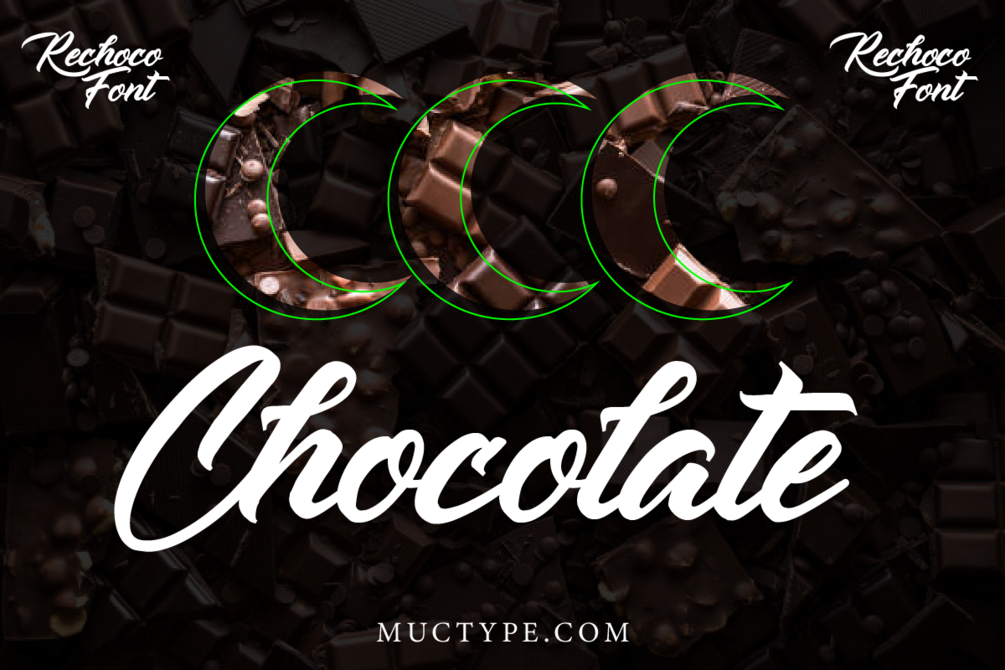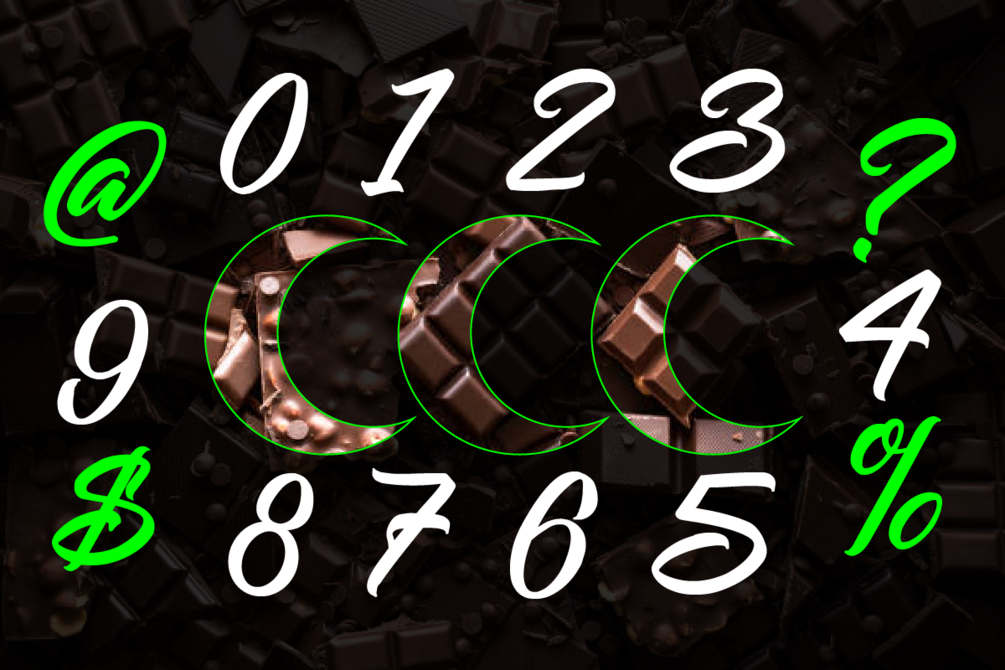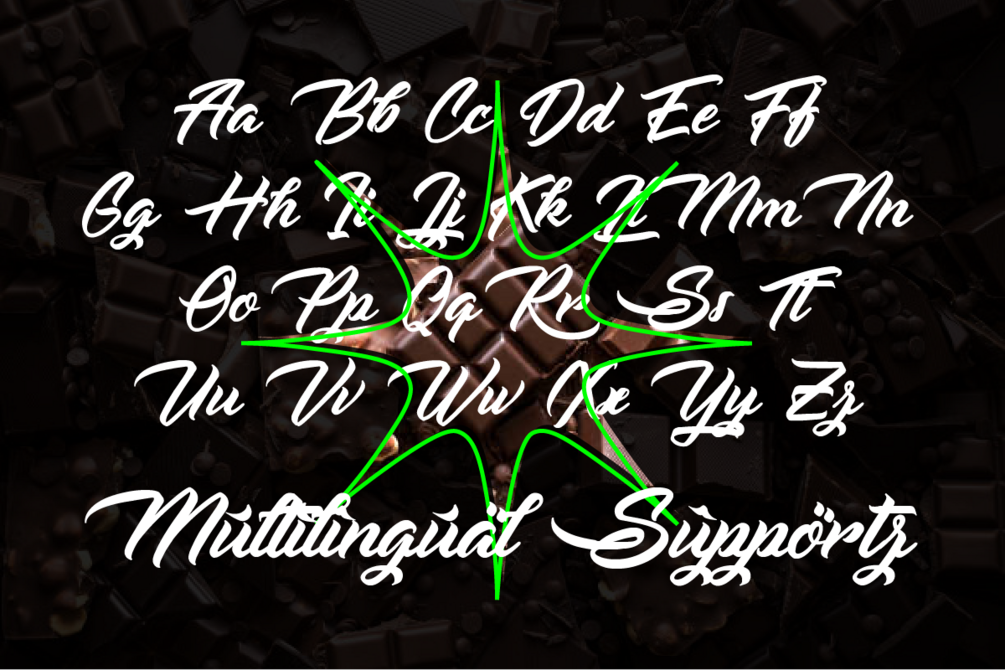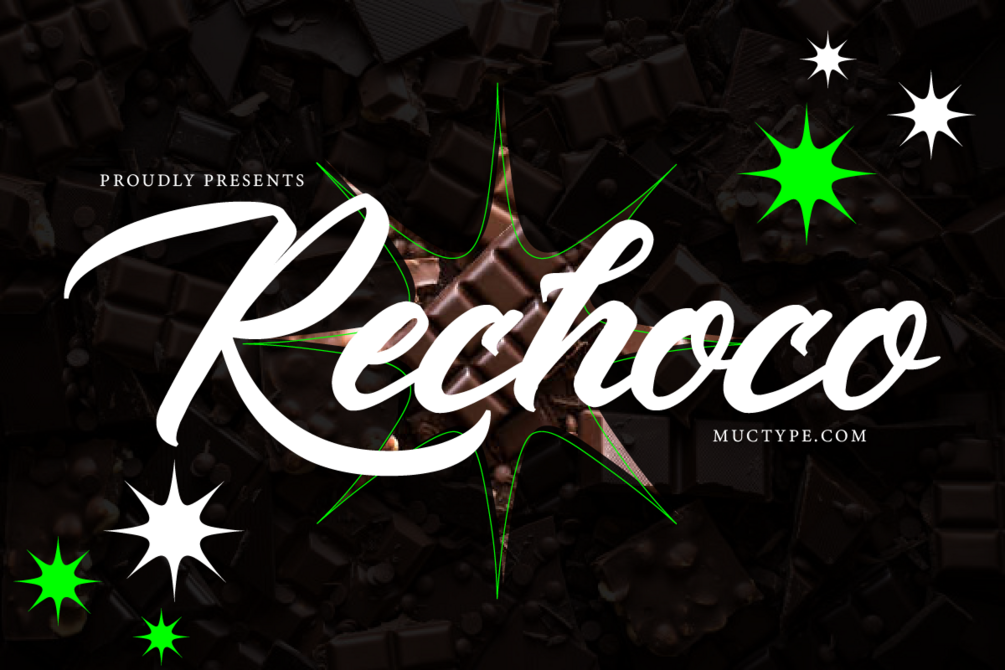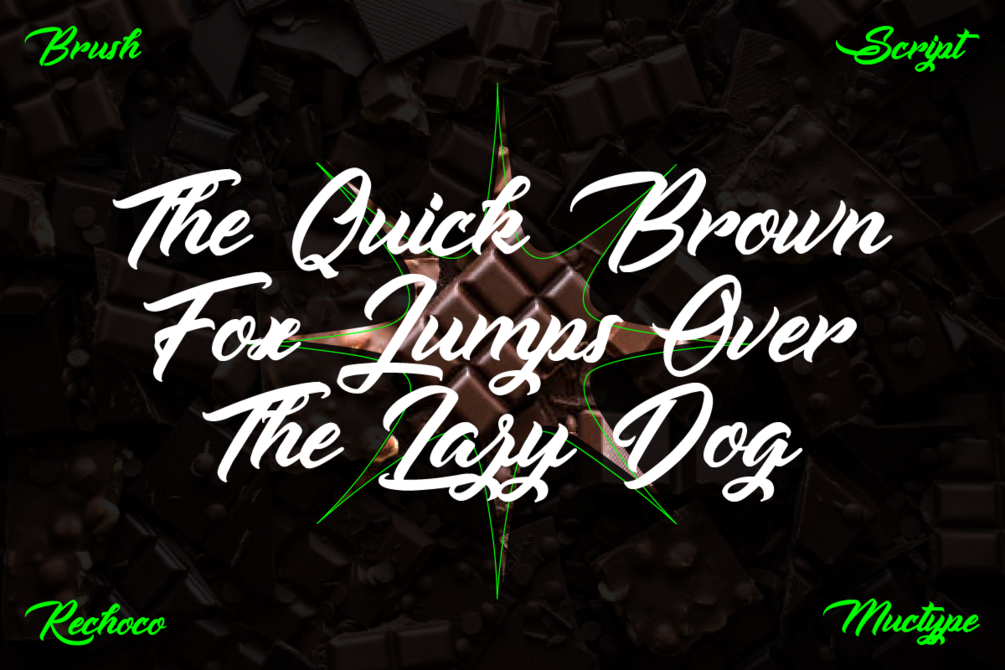
Rechoco – Brush Script Food Font
Rechoco is a bold brush script font designed to bring energy, style, and expressive character to your creative projects. With smooth strokes and a strong handwritten feel, it’s perfect for logos, branding, posters, quotes, streetwear, and modern display designs.
Its bold and dynamic look makes Rechoco ideal for headlines and short text that need to stand out.